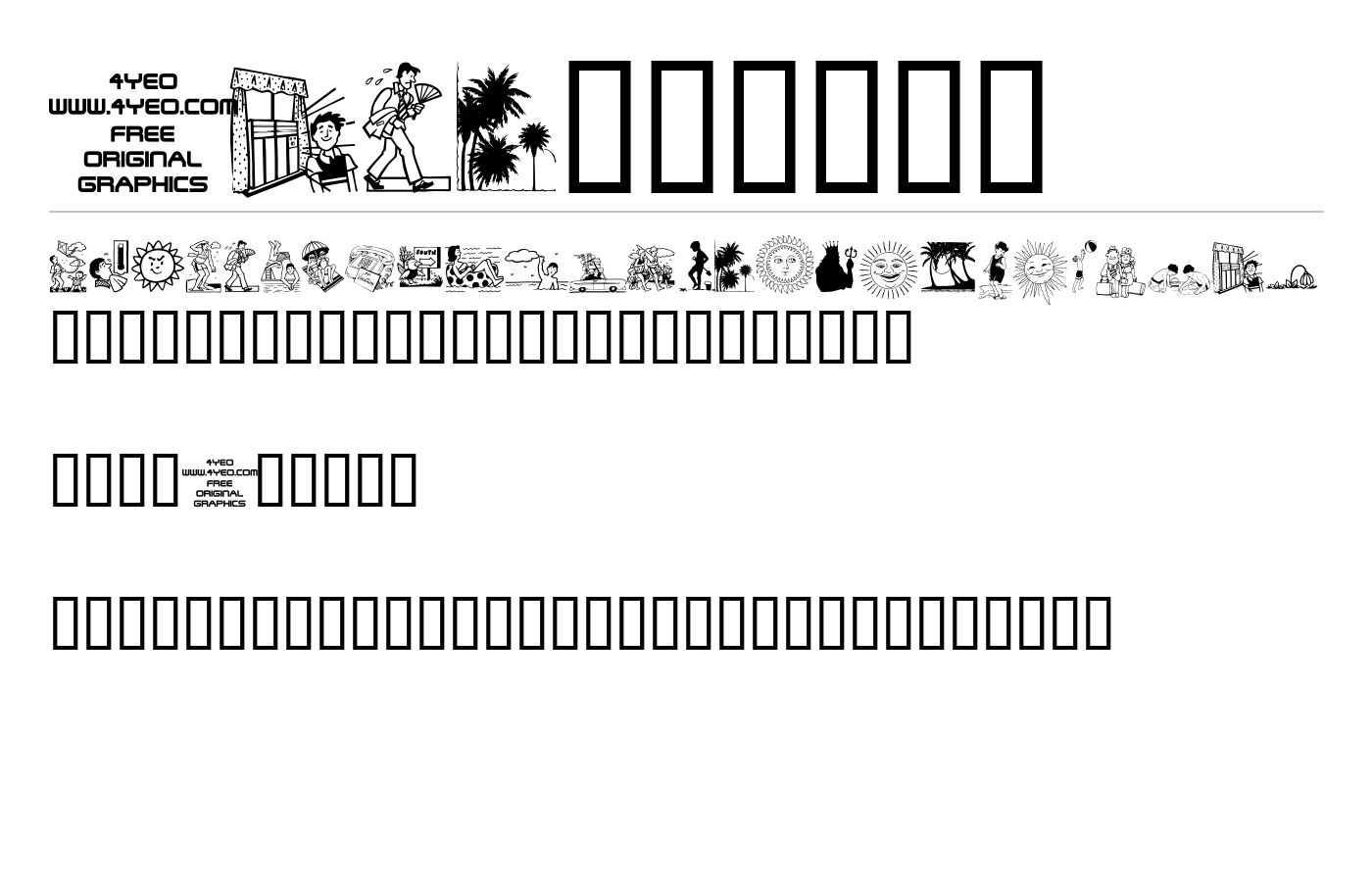
4YEOsummer is a playful, decorative font featuring summer-themed illustrations rather than traditional letterforms, making it a unique dingbat style font. Its light, whimsical design with detailed, cartoon-like graphics is perfect for adding fun, nostalgic accents to creative projects such as posters, invitations, and seasonal branding. This font works best where visual storytelling and vibrant, informal moods are desired over standard textual communication.
4YEOsummer Font